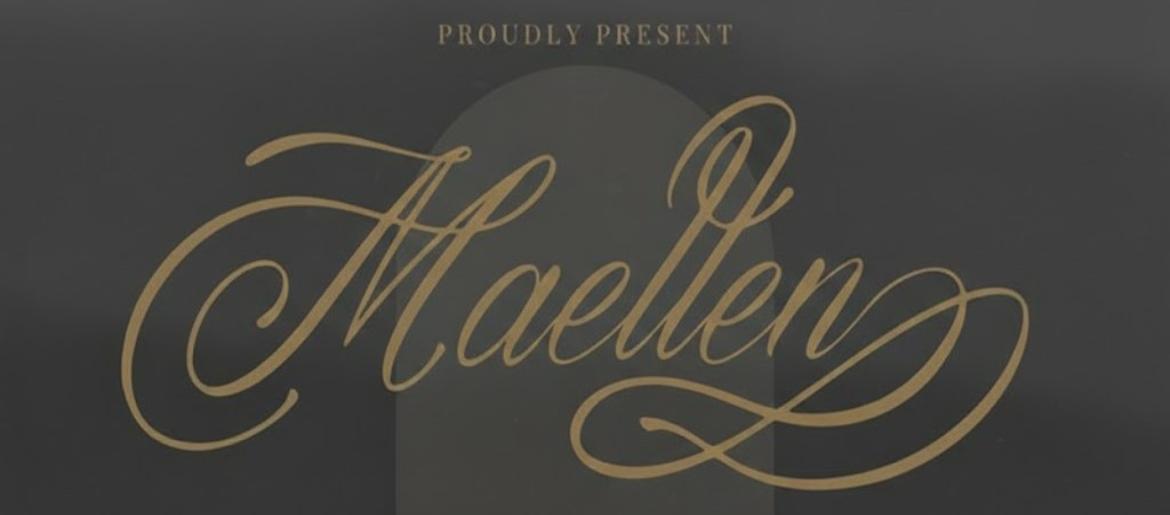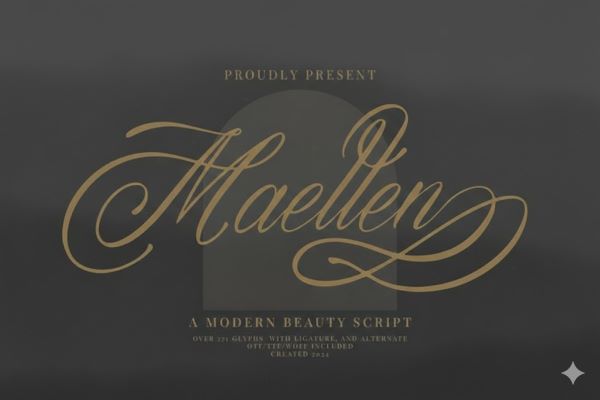
Maellen Font
Maellen Font is an elegant calligraphy typeface featuring smooth curves and flowing strokes. Its refined handwritten style makes it perfect for wedding invitations, logos, quotes, branding, and creative designs that call for a graceful and artistic touch.
➤ Style: Calligraphy